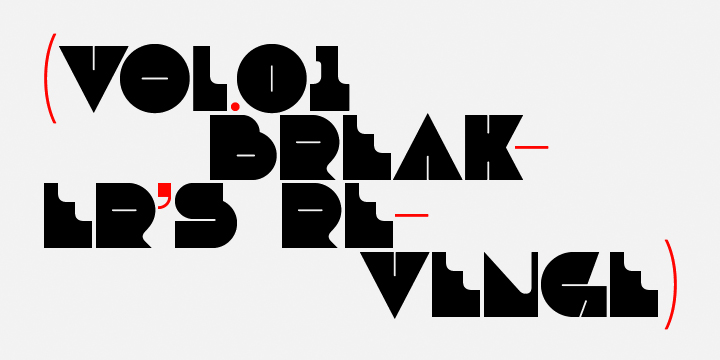
Idiom
4 Font Family by AE Type
Idiom is an extra-condensed, tightly spaced display face with congruent forms exuding a strong sense of rhythm and elevation. The basic stenciled geometric shapes are reminiscent of the decorative style found with P22 Albers and Futura Black. Careful consideration of each letter's construction, relative to all characters, lends Idiom a decided sense of cohesion and sophistication.
The included non-traditional 'weights' (Medium and Bold) are completely blacked out, creating entirely new letterforms that exhibit a very stark, contemporary sense.
Increasing the versatility of the Idiom family, a selection of OpenType features allow access to a set of contrasting linear punctuation forms, unconventional ligatures, case-sensitive punctuation and more.
Features include:
- Basic Ligature set including 'f' ligatures (ae, oe, fi, fl, ff, fh, fj, ft, fa, ct, st, rt, ot, ta, sa, mi, si, vi, su, oc, oo, ru, ib)
- Alternate characters (M, W, T,